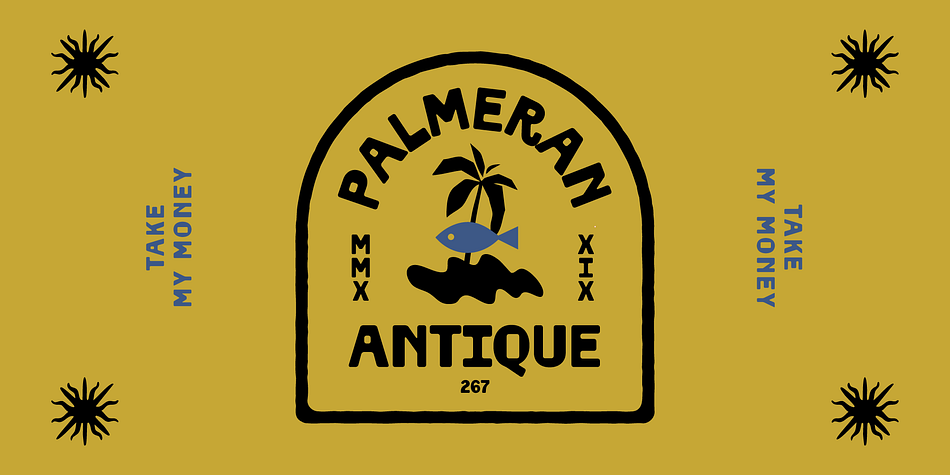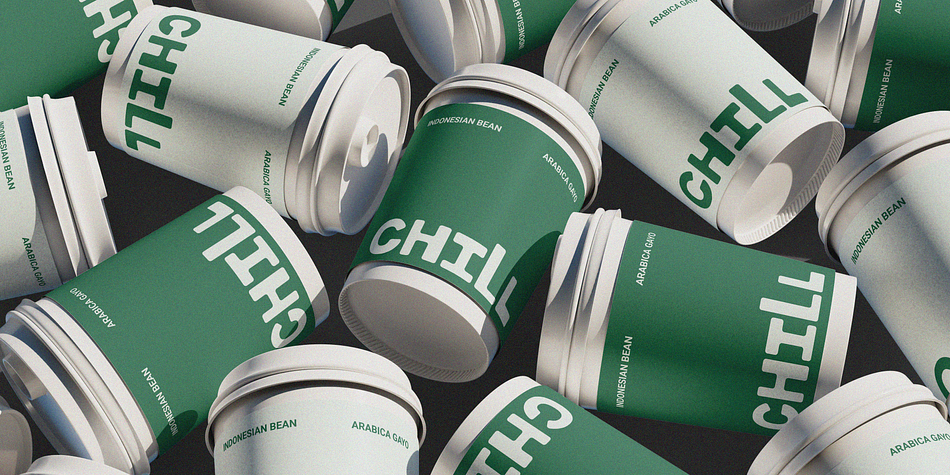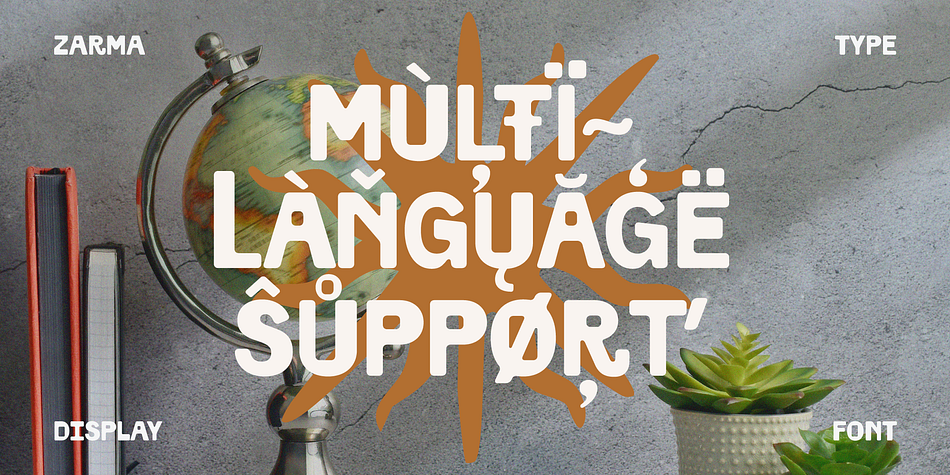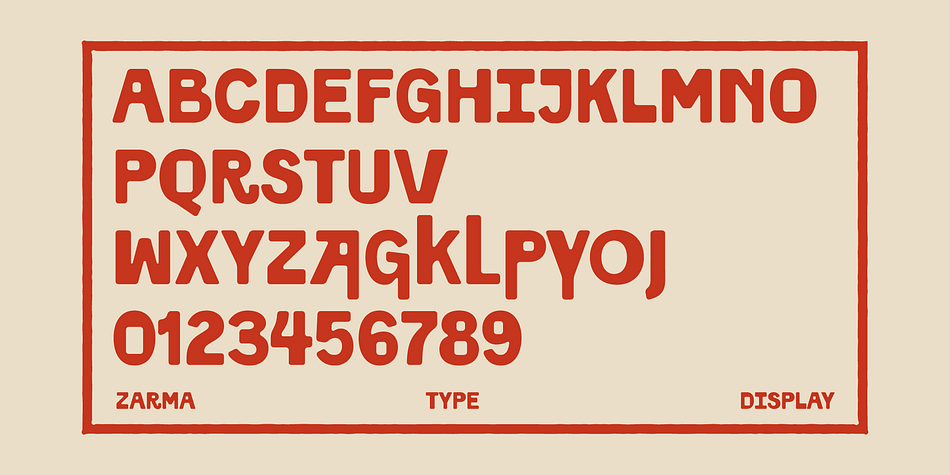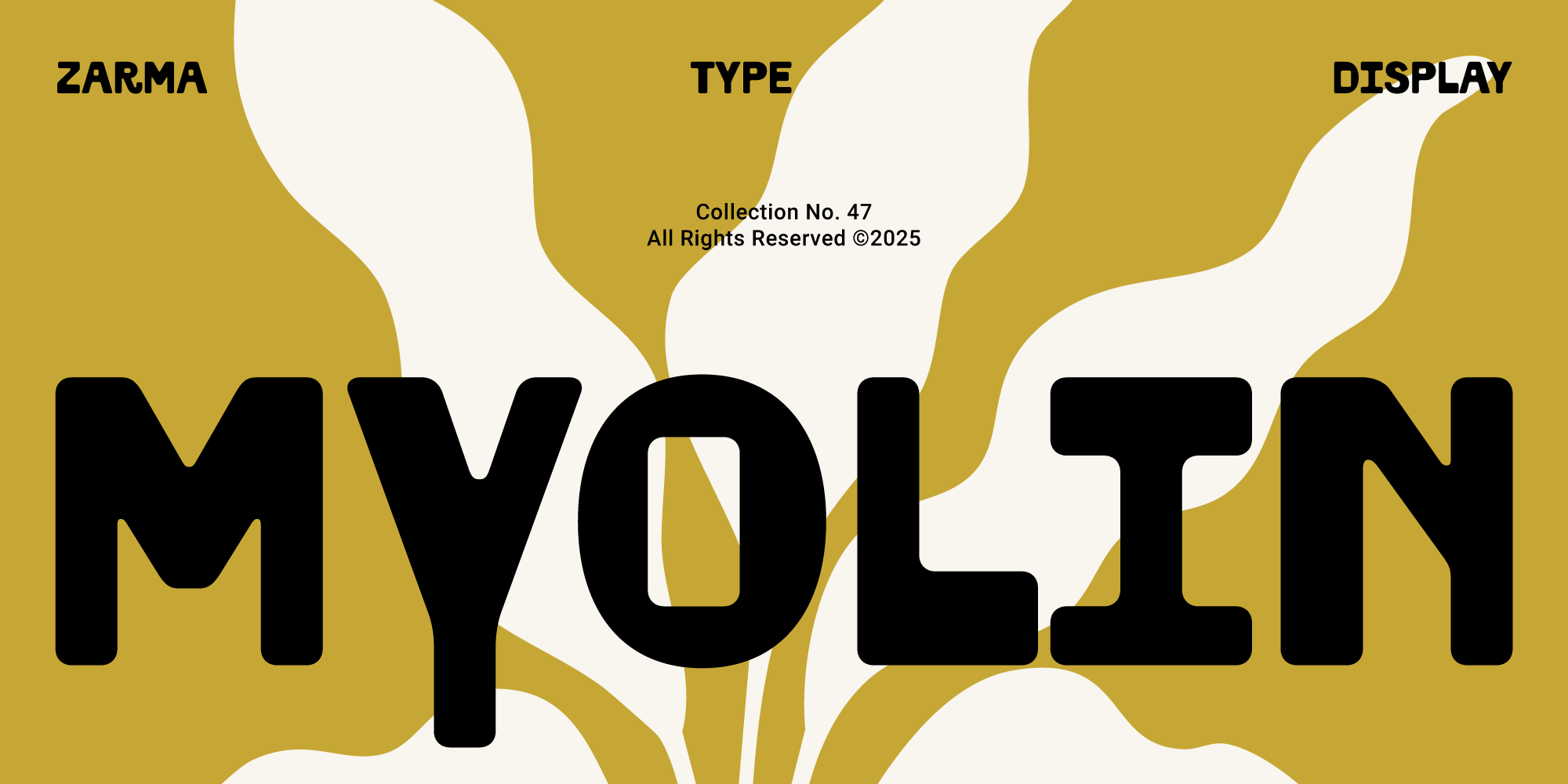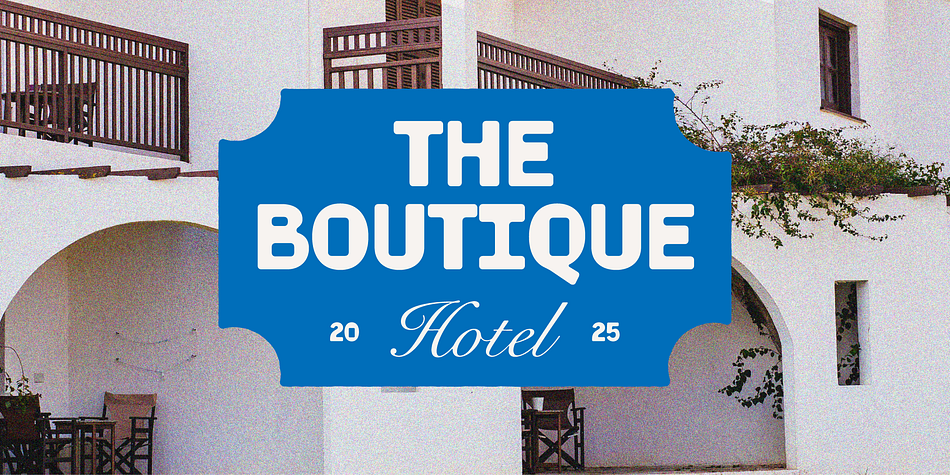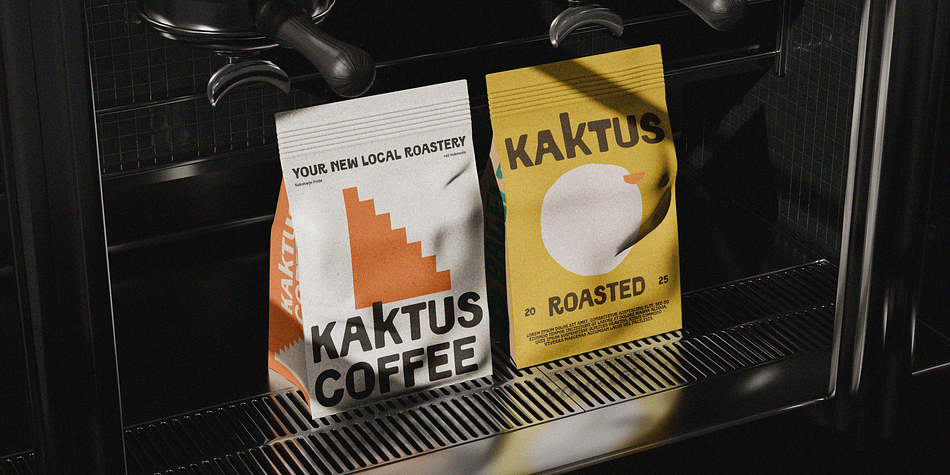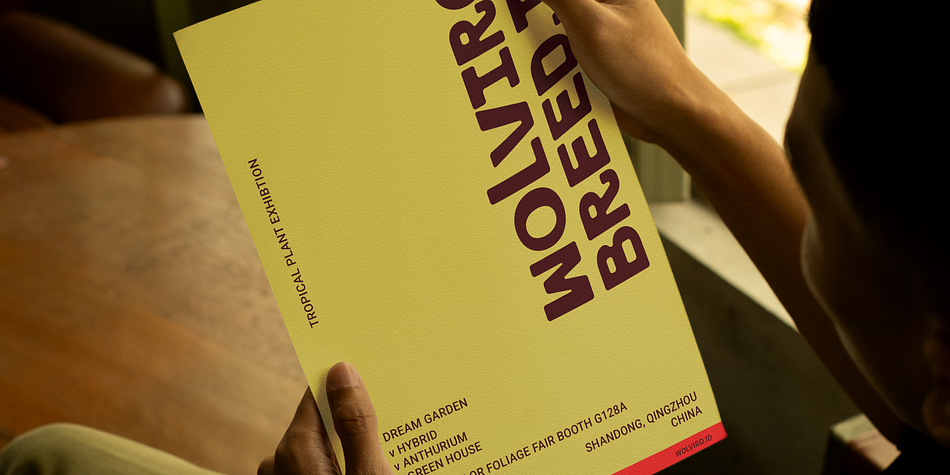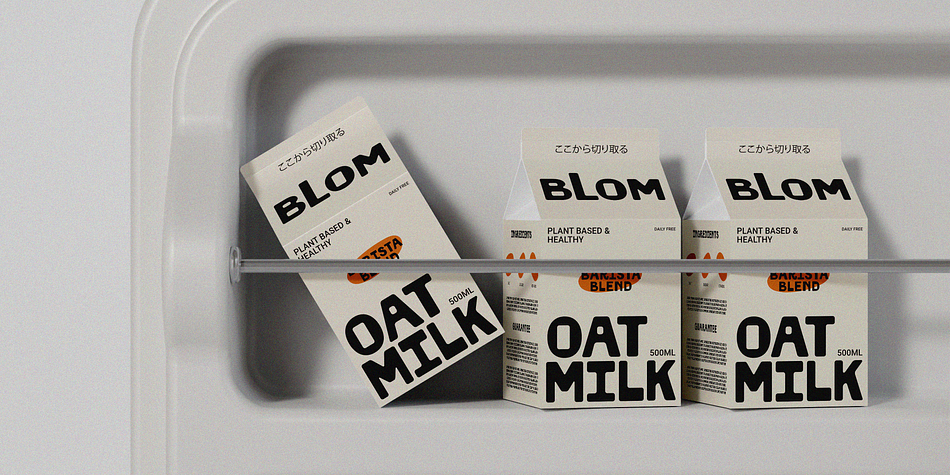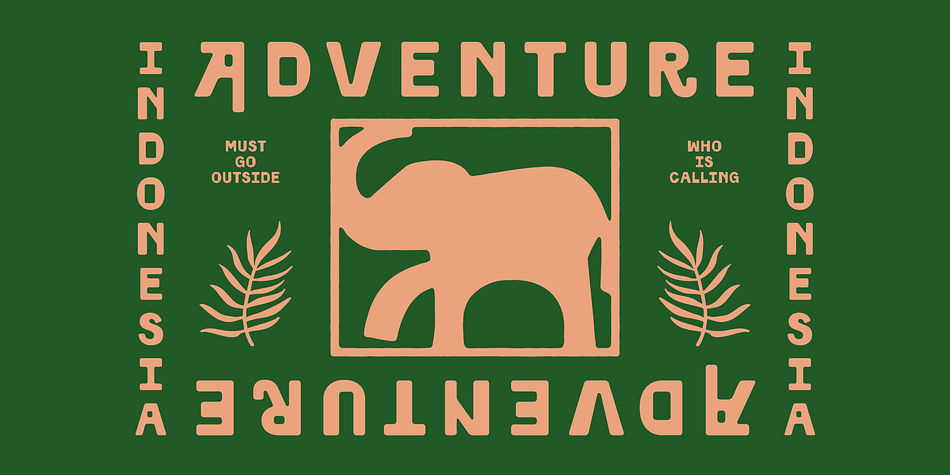
Myolin is a display sans font family published by Zarma Type.
Myolin
Myolin is a bold display font with playful, quirky letterforms that combine retro charm and modern aesthetics. Designed to stand out, it’s perfect for creative projects like branding, packaging, editorial headlines, and especially Mediterranean minimalism style designs that are trending today. Its geometric structure and expressive curves add a unique personality to any layout, making it ideal for both print and digital use.
With strong multilingual support and PUA-encoded characters, Myolin ensures versatility and accessibility across global design needs. Whether you’re crafting artisan coffee labels, sun-kissed posters, or boutique branding, Myolin brings a warm, confident, and stylish presence to your work.